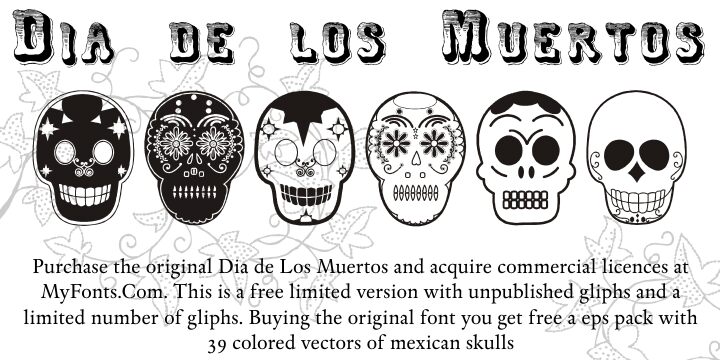
Dia de los Muertos Limited by Iza W of Intellecta Design is a free horror symbol font centered on richly decorated skulls. Each skull has a distinct face, ranging from floral filigree and heart-shaped eyes to sunbursts, diamonds, and curling ornaments. Plain cross symbols punctuate the more elaborate illustrations.
A tattoo studio or alternative clothing label could use the collection as a ready-made graphic identity. The mix of grinning teeth and folk-inspired decoration also suits event posters and themed merchandise, with the skulls supplying both subject and ornament. In publishing, individual symbols can become chapter marks or illustrated emblems for macabre stories.
Dia de los Muertos Free Version by Intellecta Design contains unpublished glyphs in a special free set with a limited number of glyphs.
Dia de los Muertos is based on a Mexican fiesta celebration in which skulls are used as humorous epitaphs for living people and as a symbol of celebration. It was created by Iza W.